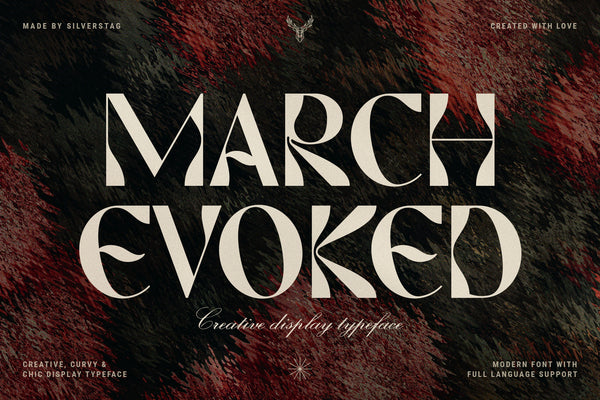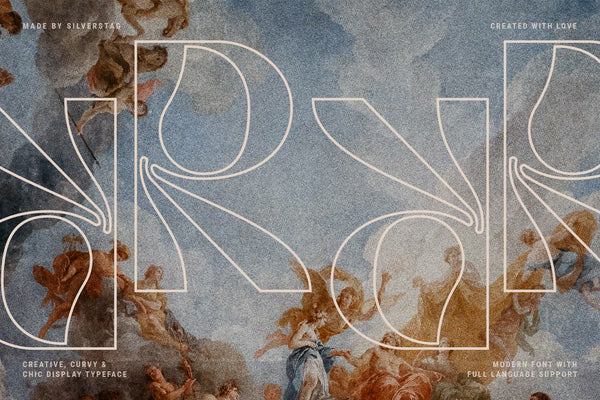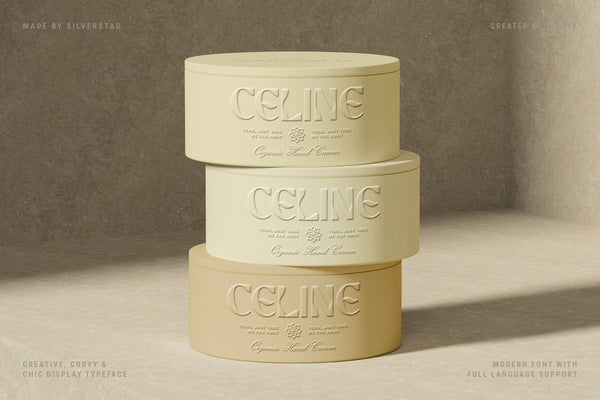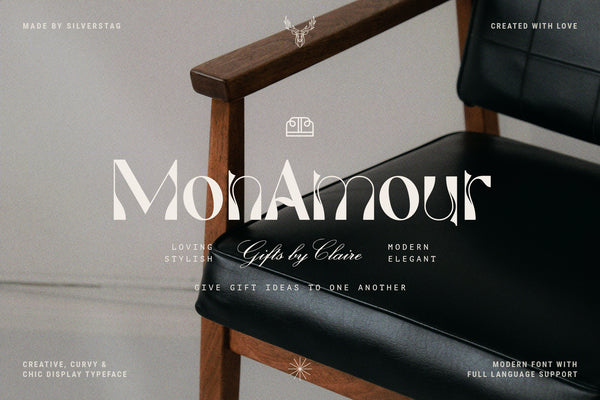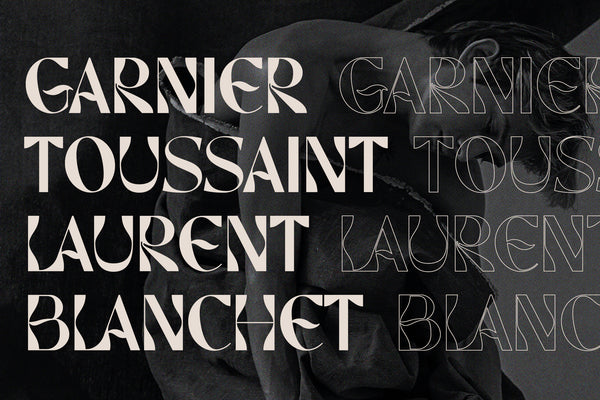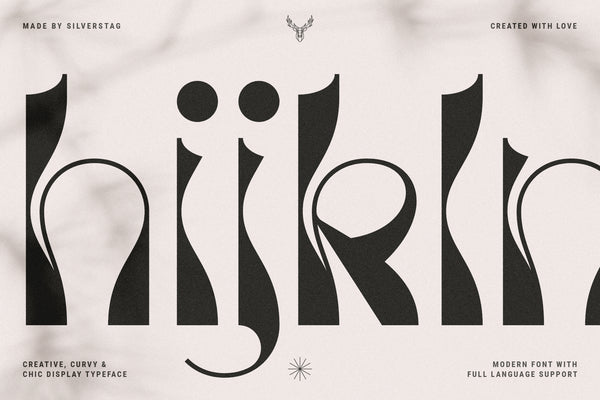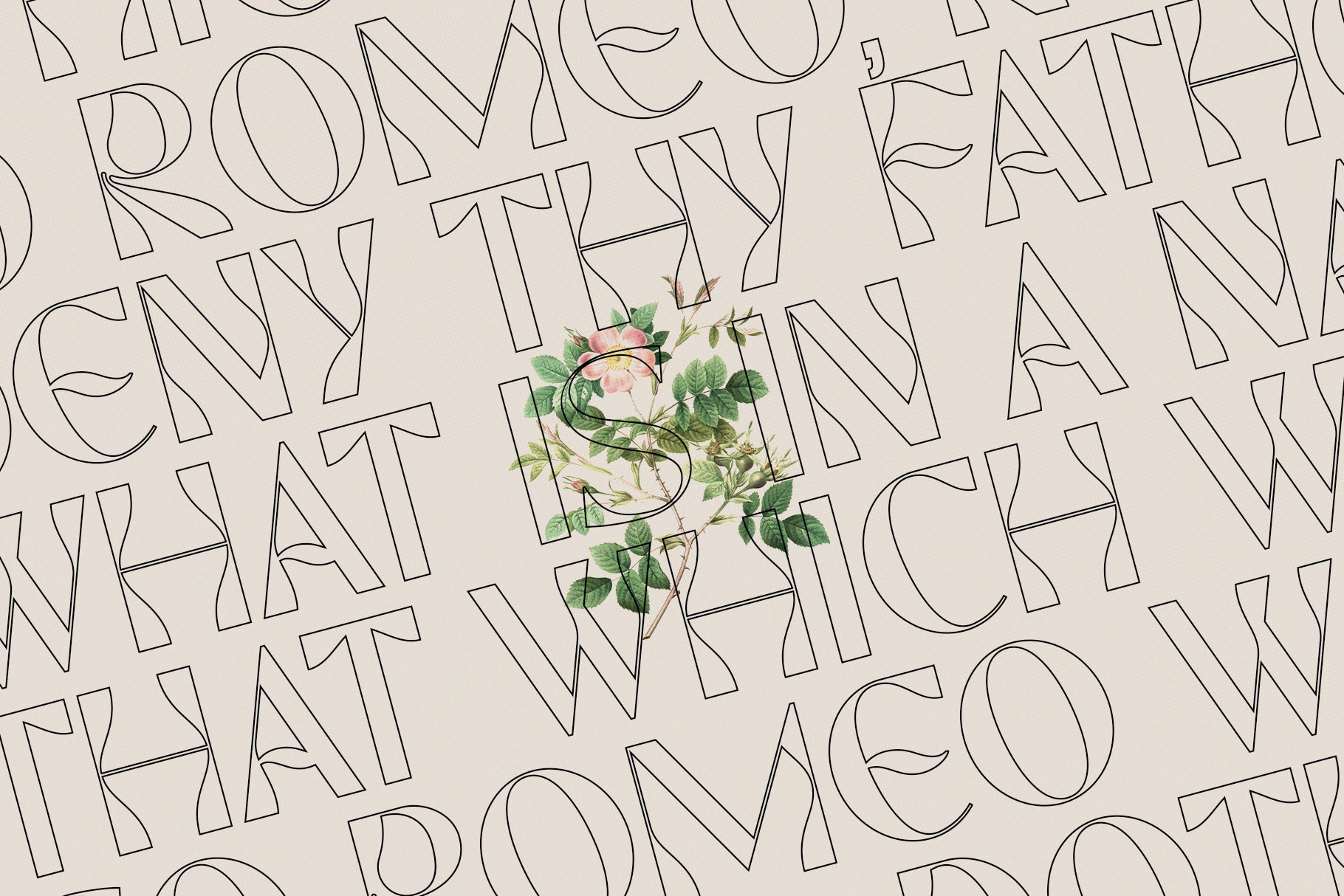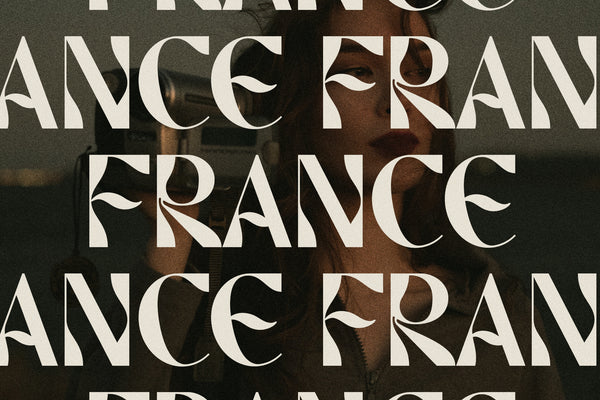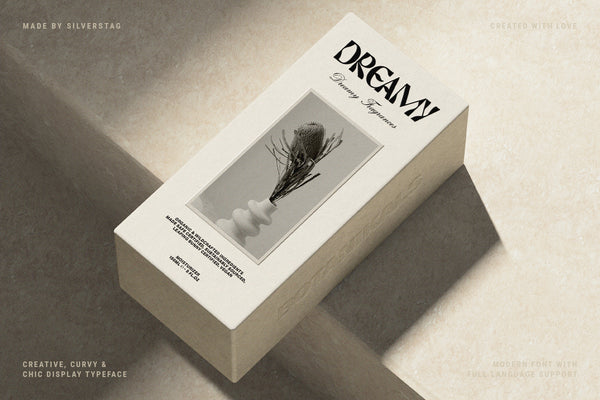
March Evoked is a fresh and modern display font duo inspired by the early spring blooms of Madrid. With its chic curves and contrast-heavy forms, this typeface captures the playful elegance of nature in full bloom—perfect for designers looking to add character and charm to their projects.
This font pack includes both Regular and Outlined styles, giving you flexibility for bold headlines, layered designs, or logo marks that pop with personality. Whether you’re working on branding, social media graphics, posters, or editorial layouts, March Evoked delivers a confident, creative voice.